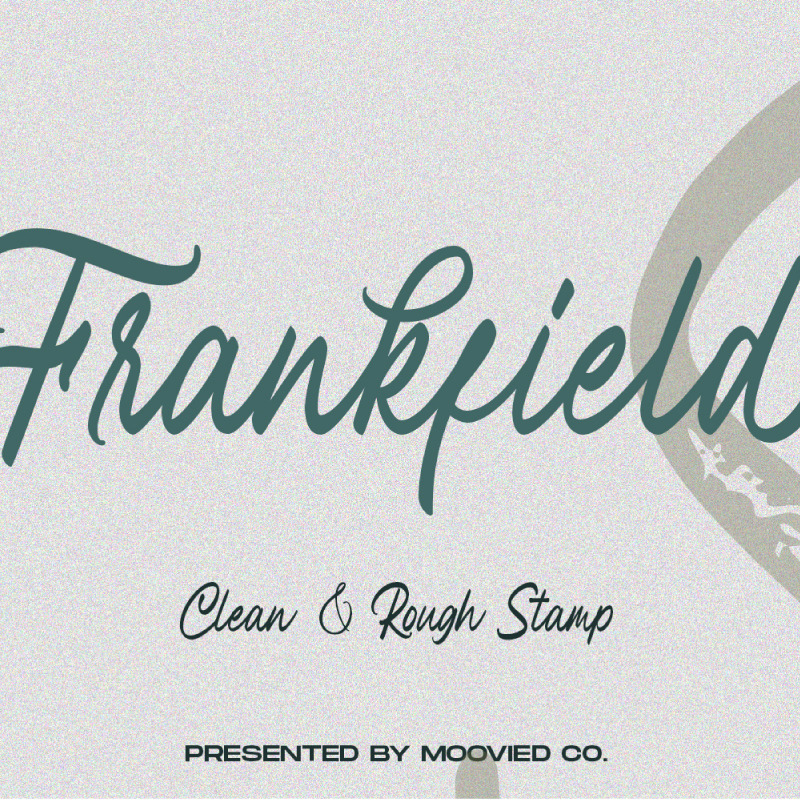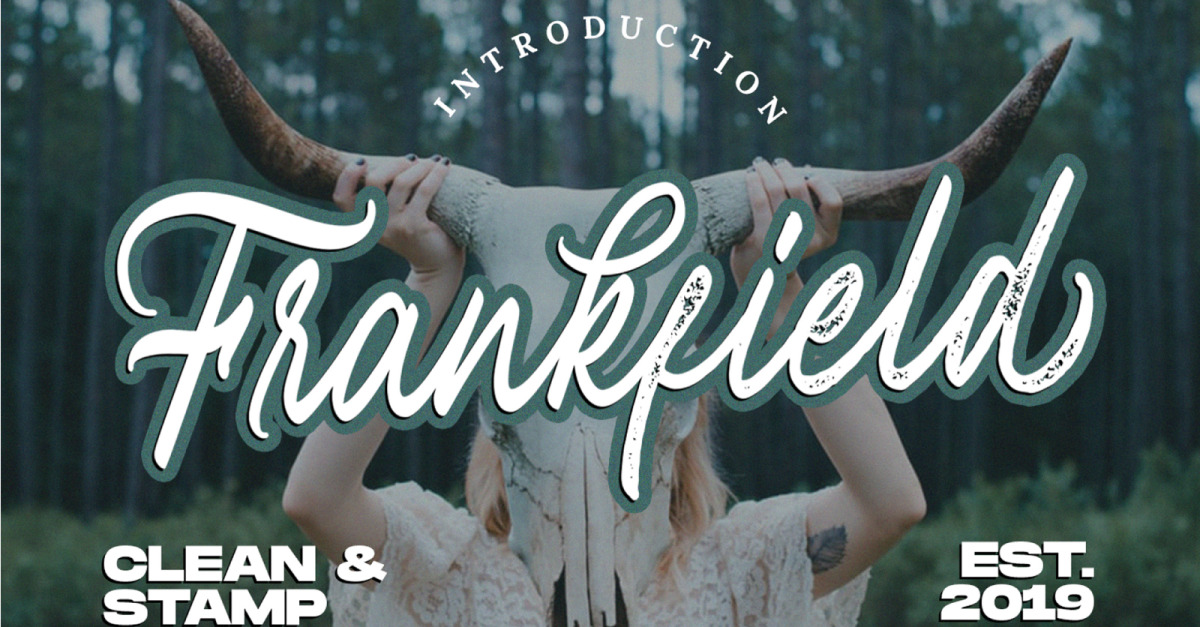
Frankfield Font
This is perfect for invitations, signatures, blogs, social media, business cards, product brands, etc.
The Features includes:
Stylistic Alternates,
Swashes,
Ligatures,
Contextual and Stylistic Set.
Multilingual